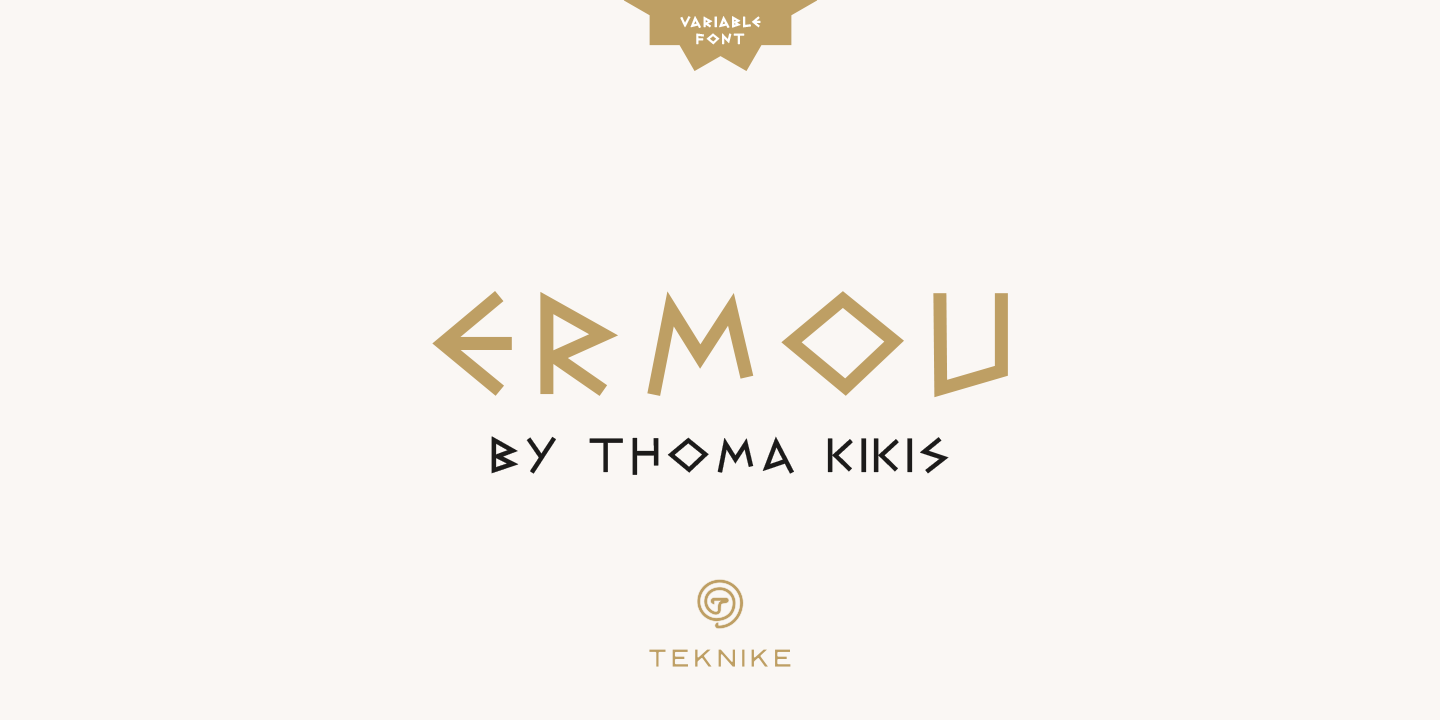
Ermou Font is perfect for Mediterranean restaurant branding, Greek cultural center signage, ancient heritage museum displays, classical architecture firm presentations, historical tourism promotional materials, traditional taverna menus, archaeological site educational graphics, Greek island vacation marketing, cultural heritage preservation campaigns, and authentic Mediterranean lifestyle publications. Its classical Mediterranean character makes it ideal for projects requiring Greek heritage authenticity and ancient cultural sophistication.
What makes Ermou Font exciting is its authentic embodiment of Greek heritage and Mediterranean culture with classical letterforms and timeless characteristics that capture the essence of ancient wisdom and cultural sophistication excellence. The font features harmonious proportions, classical-inspired details, and heritage character construction that create authentic Mediterranean atmosphere and cultural appeal. Its distinguished personality brings historical depth and cultural authenticity to contemporary designs while maintaining the clarity essential for cultural communications and heritage presentations. The carefully crafted classical elements ensure cultural accuracy while preserving the distinctive character that embodies the essence of Greek tradition and Mediterranean excellence.
Ermou Font comes in multiple classical variations including Light, Regular, Medium, Bold, and Heritage styles. Each family member maintains the distinctive Mediterranean character while offering comprehensive flexibility for cultural typography and heritage brand system development. The complete font family includes alternate characters, Greek symbols, and classical decorative elements that provide extensive tools for creating immersive Mediterranean design experiences and authentic cultural brand storytelling.
Whether you're developing Mediterranean brands, cultural heritage projects, or Greek tourism initiatives, Ermou Font Free Download provides the authentic sophistication needed to communicate with culturally conscious audiences and heritage enthusiasts who appreciate Greek tradition and Mediterranean culture. The font's classical appeal resonates with cultural professionals, heritage tourists, and Mediterranean lifestyle enthusiasts seeking authentic Greek credibility and cultural sophistication. Its comprehensive character set includes Greek symbols and heritage marks, making it perfect for creating complete Mediterranean brand systems and memorable cultural storytelling across diverse heritage applications and tradition-focused design projects that celebrate Greek culture and Mediterranean excellence.